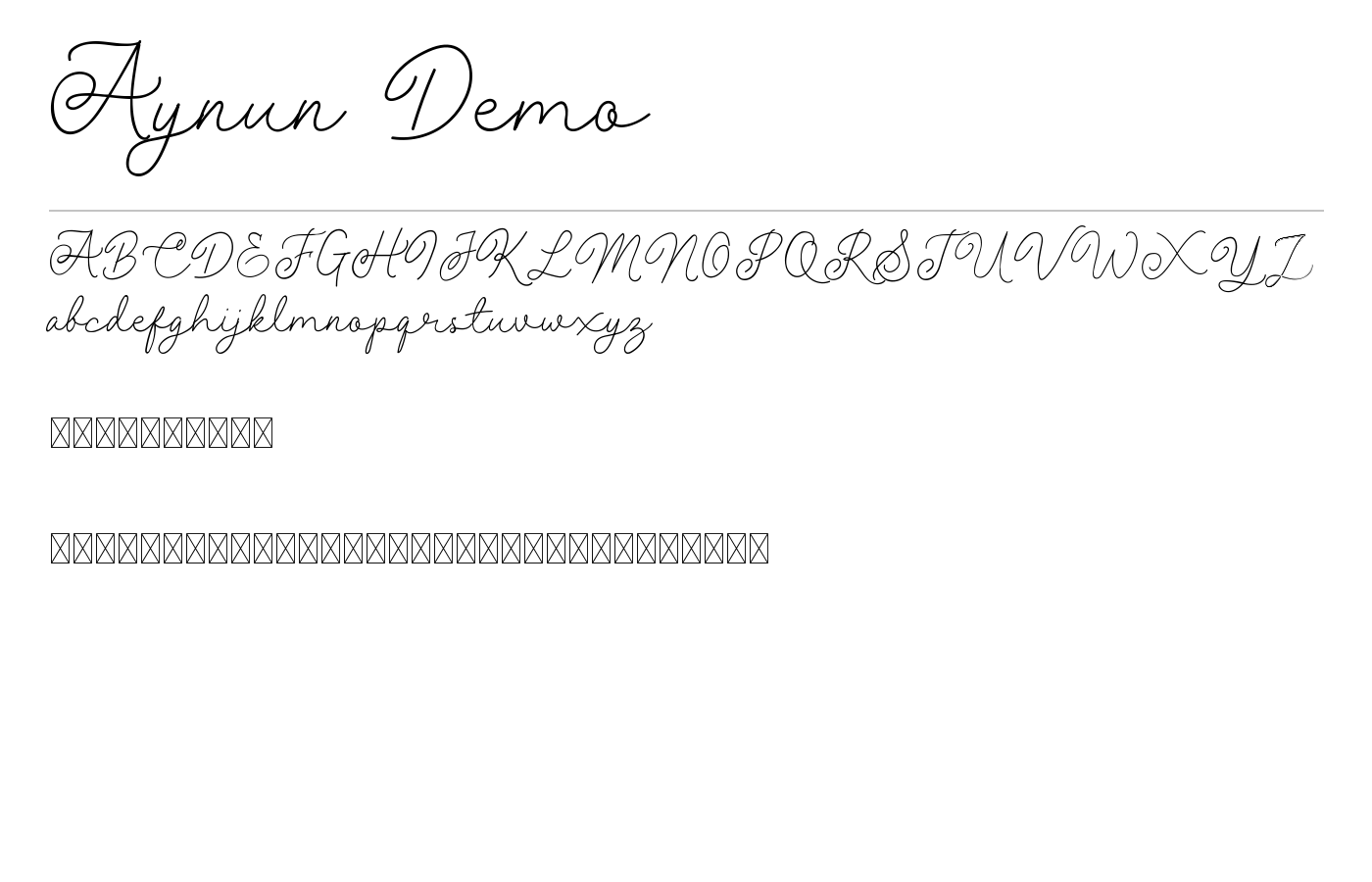
Aynun Demo is a delicate, elegant script font characterized by its fine, flowing lines and graceful letterforms. It features smooth, calligraphic strokes with a light weight and a slightly narrow width, making it perfect for designs that require a refined, sophisticated touch. Ideal for invitations, branding, and feminine or luxury-themed projects, this font adds a personal and stylish feel without overwhelming the layout.
Aynun Demo Font
About Aynun Demo Font